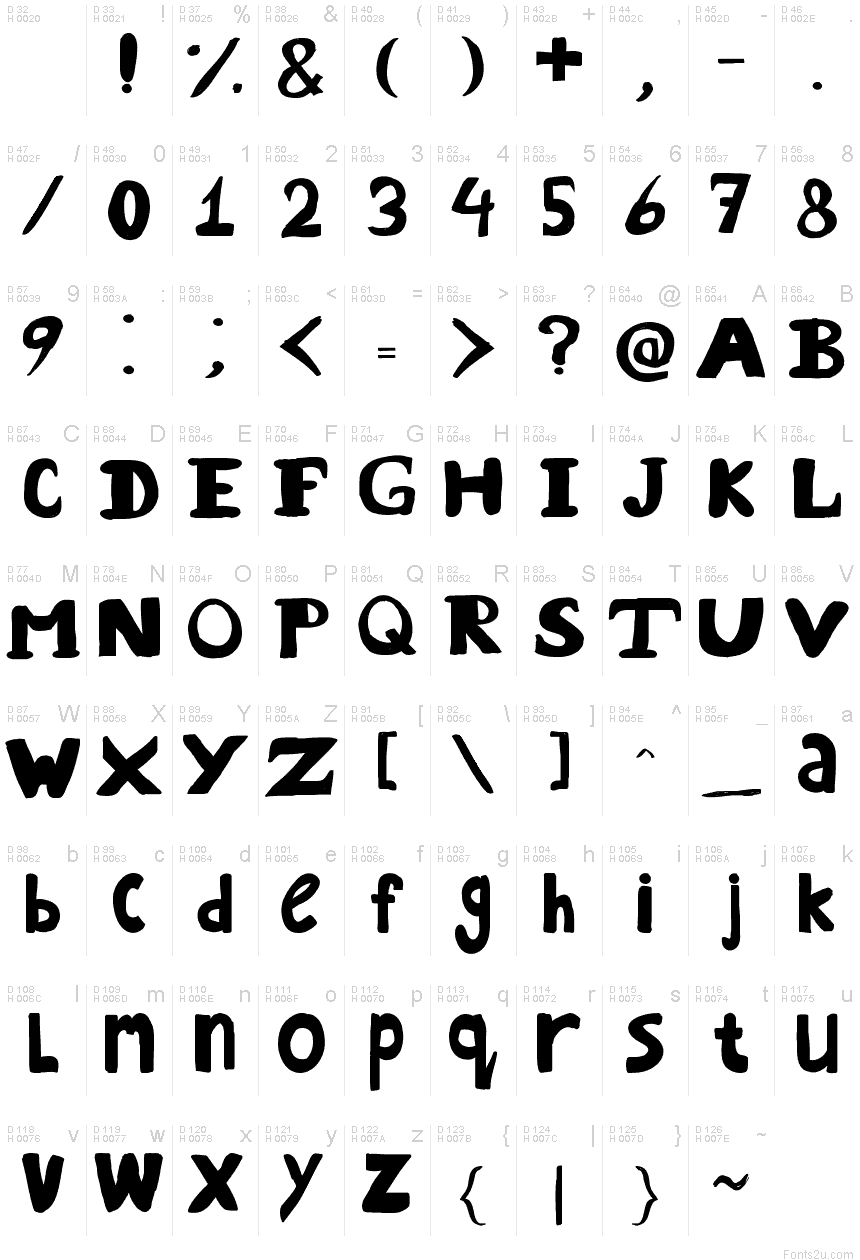
Dream Daddy is a free comic display font with hefty, uneven letters and an unmistakably hand-drawn outline. Rounded curves meet blunt corners, and the changing widths keep each character lively without making the shapes fussy. Its loose baseline is especially noticeable.
Children's book covers and comic panels can use that friendly wobble for names, sound effects, and chapter openings. The same rough-cut weight also suits indie music posters and snack packaging, where polished geometry would feel too formal. In either setting, the letters can become part of a mascot badge or illustrated sign rather than acting as neutral copy.